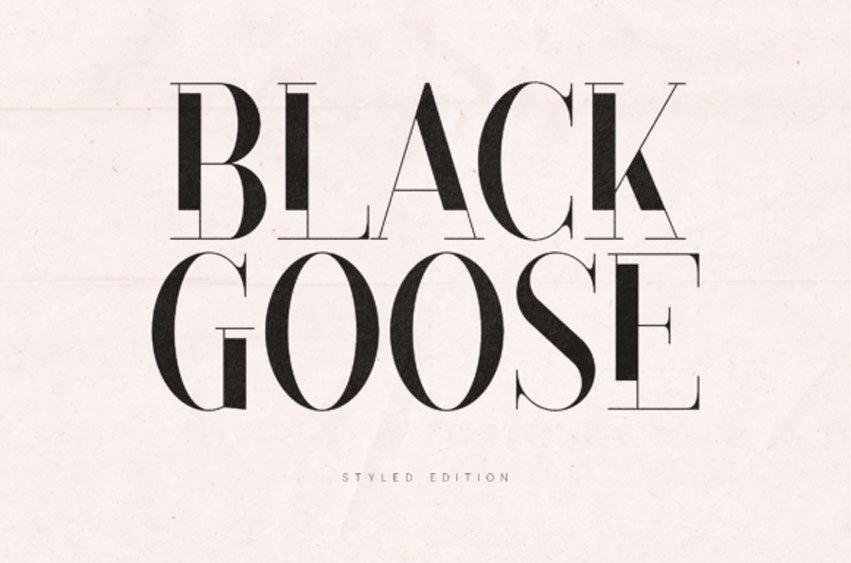
Black Goose Serif Font is a refined modern serif typeface designed for elegant editorial layouts, branding, and high-end typography.
Black Goose is perfect for fashion magazines, luxury branding, packaging design, and modern logo creation.